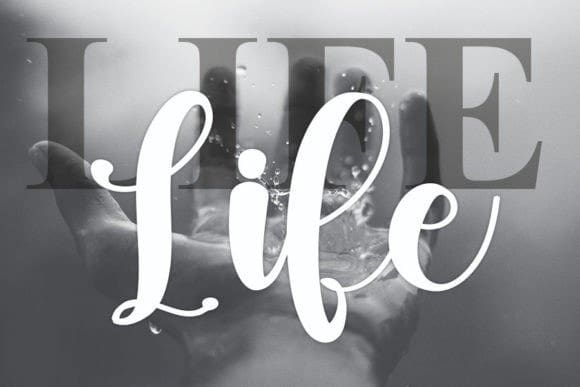
Thanks Giving Font
Thanks Giving Font is a trendy handwritten font with a contemporary atmosphere and impeccable form, inspired by a timeless classic calligraphy. It will add elegance and class to any of your design projects.